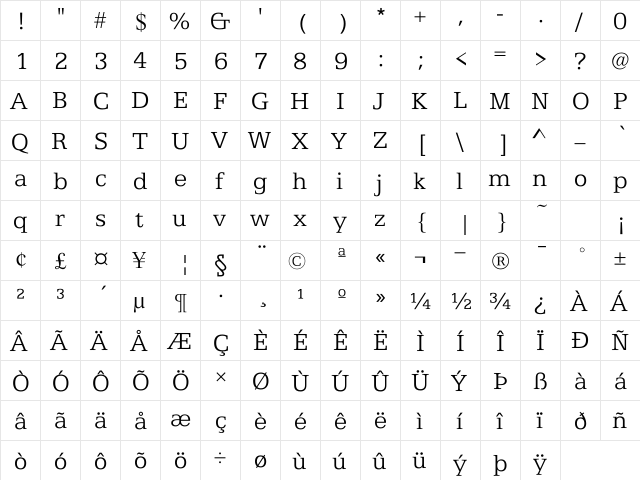
ATFAntiqueL Regular
Design Context for ATFAntiqueL Typeface
ATFAntiqueL has the warm character of retro typography — evoking diners, record sleeves, and the golden age of print advertising.
Font Pairing: Combine ATFAntiqueL with a simple slab or neutral sans — period-accurate companions reinforce the vintage feel without competing for attention.
Pro Tip: Lean into ATFAntiqueL's period character by pairing it with aged paper textures, muted colour palettes, and vintage illustration styles.